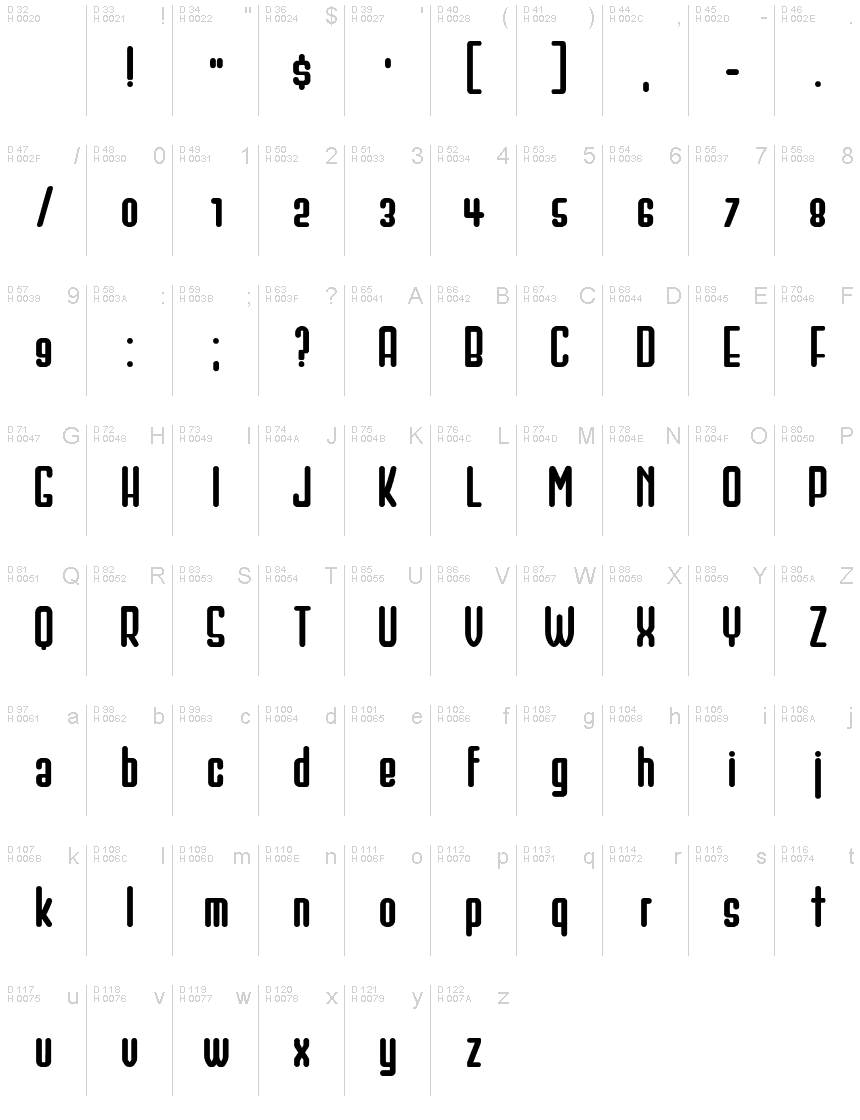
Daily Gifts Regular
The Daily Gifts font designed by Vladimir Nikolic is a modern and sleek sans serif typeface with a semi-light weight and extra-condensed width. Its clean lines and simple design make it perfect for a wide range of projects, from digital to print. Use it for headlines, logos, posters, packaging, or any other designs that require a minimalist touch. Its narrow width also makes it ideal for tight spaces or limited layouts. Daily Gifts adds a touch of sophistication and professionalism to any project. Try it out today and see the difference it can make!
Daily Gifts